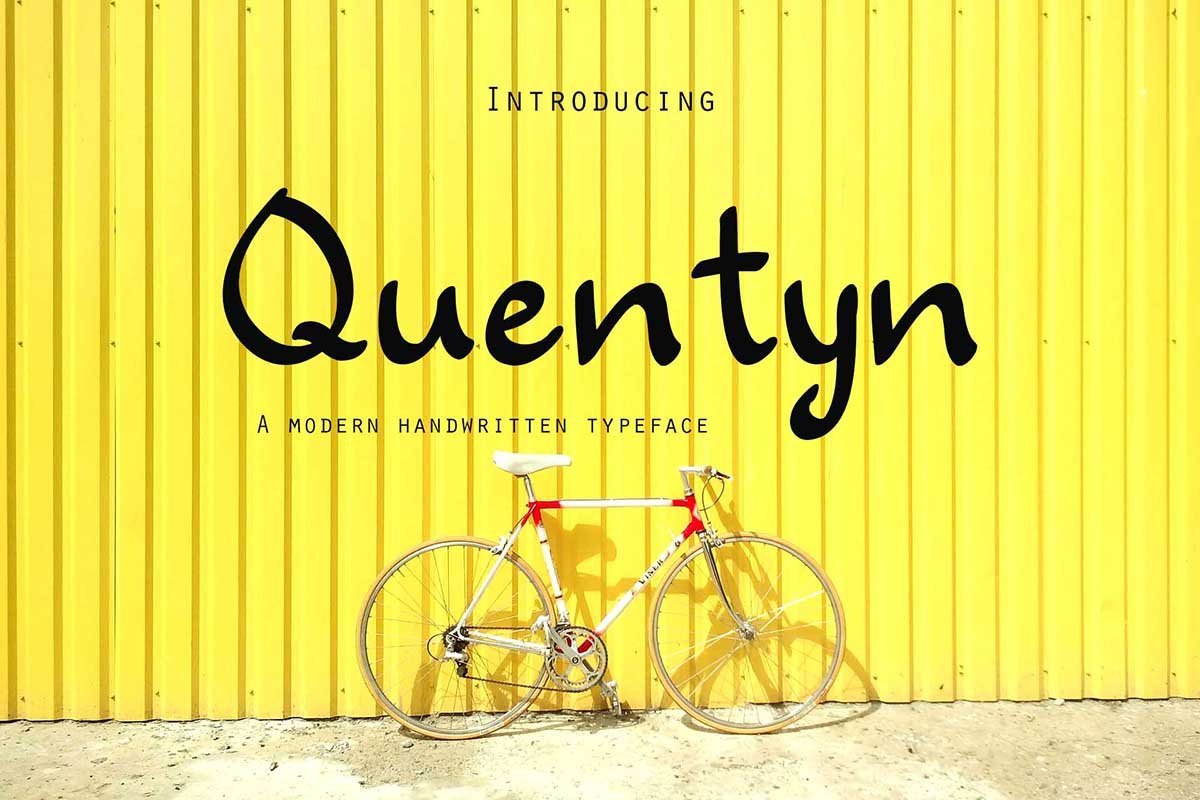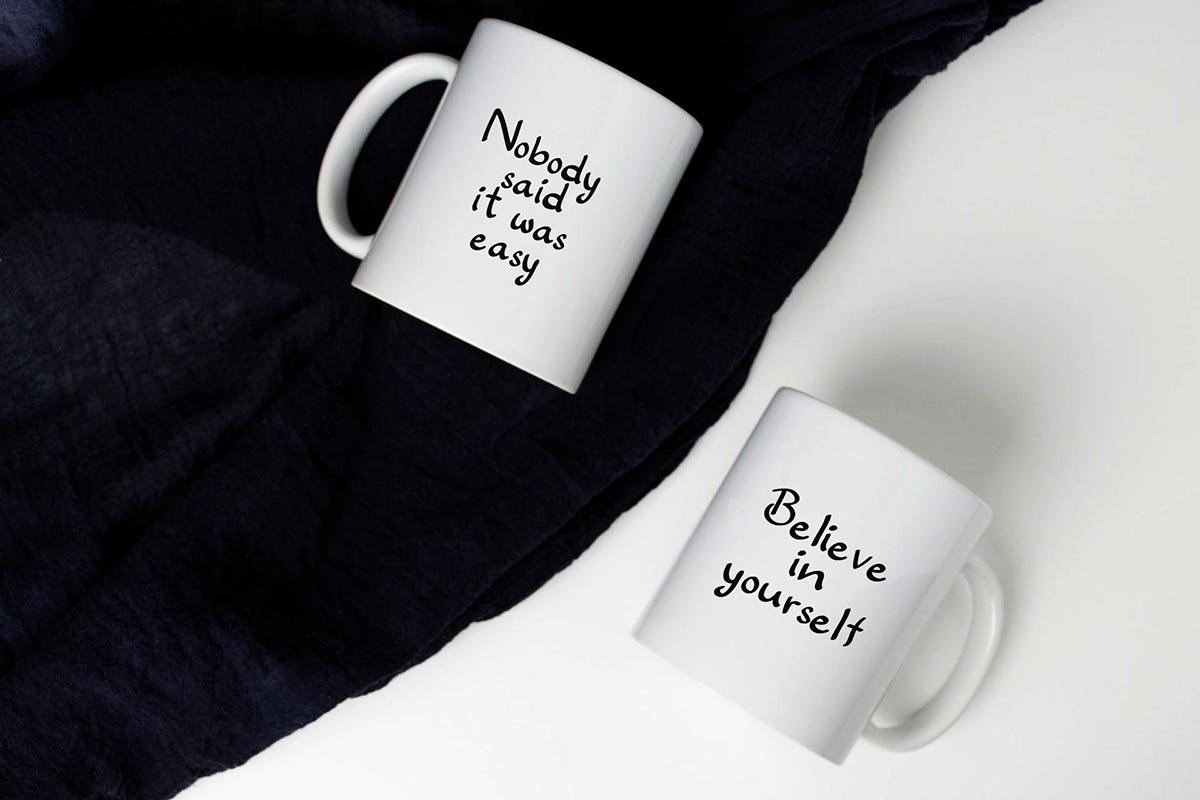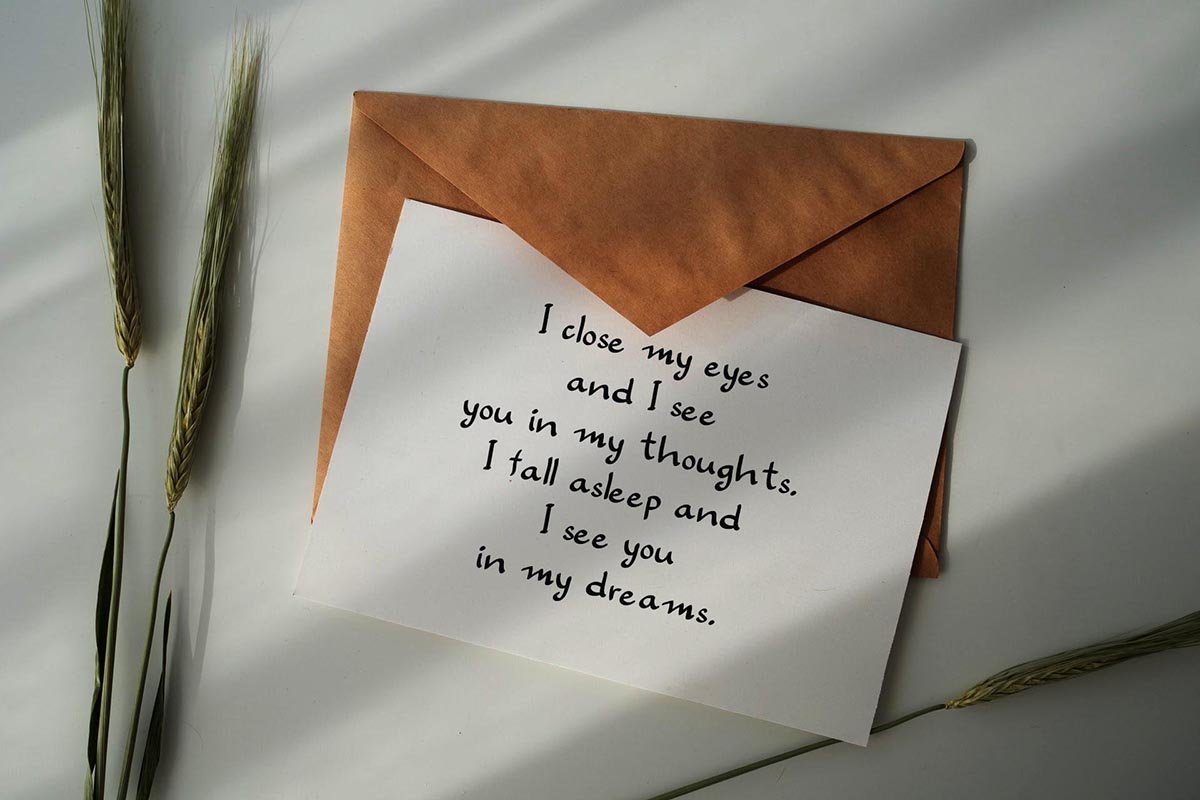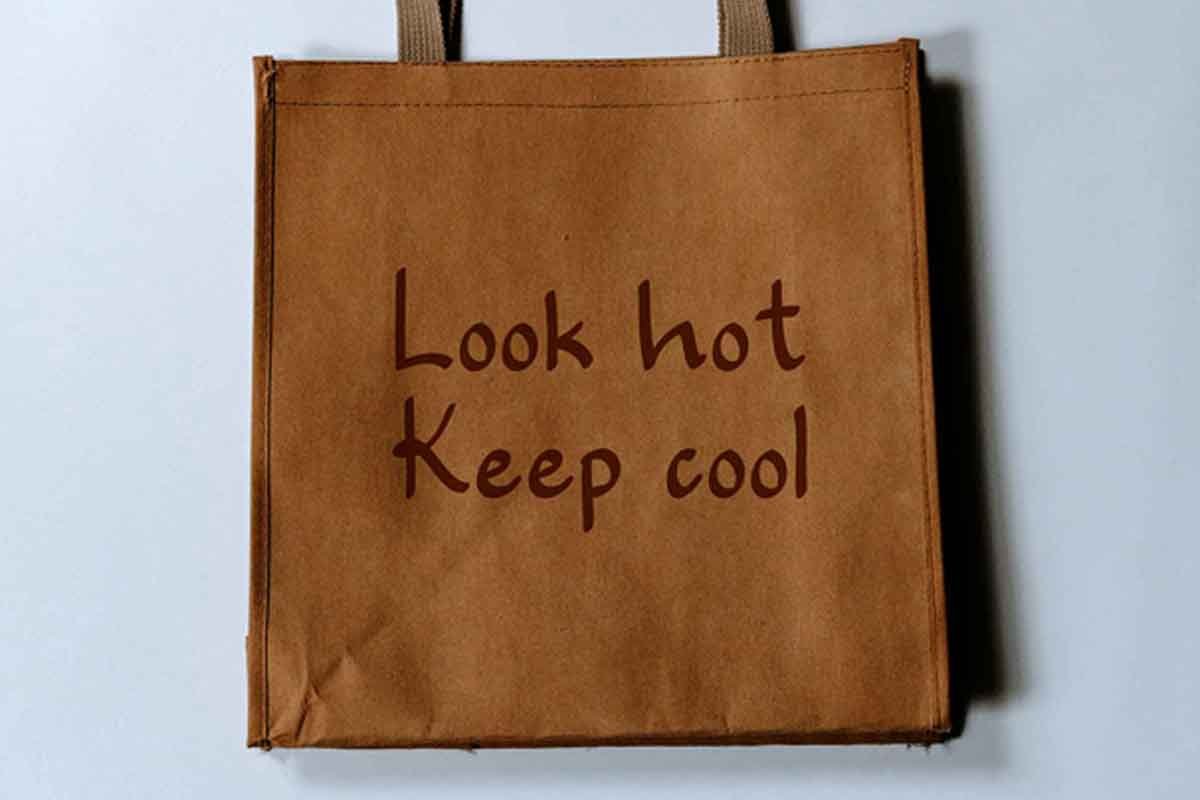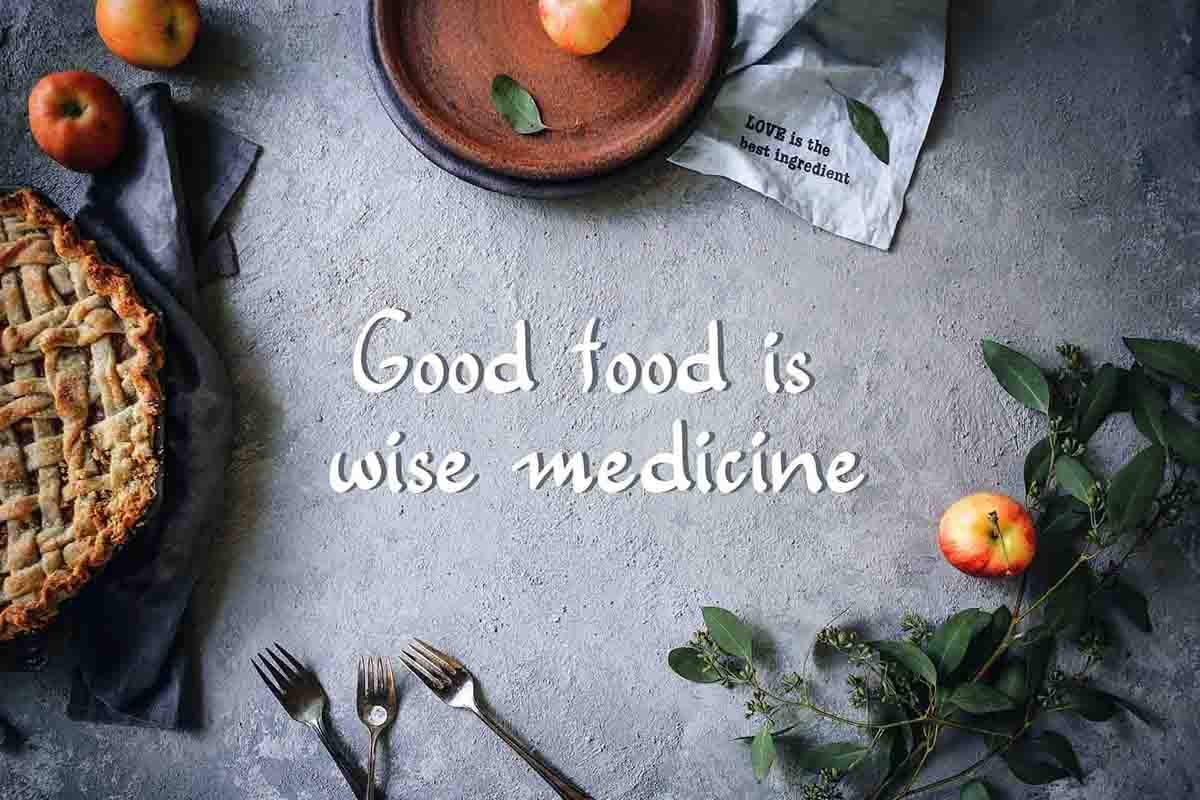
Free Quentyn A Handwritten Font is an awesome display font. It is a modern handwritten font that can be suitable for various creative ideas. This display font is very good for t-shirts, mugs, headlines, merchandise, editorial design, and more. It comes with two format files which are TTF and OTF that will support in your devices. This free font has a special character and fine glyph. However, it is only available for a personal use license, but get more feature by contacting the author.